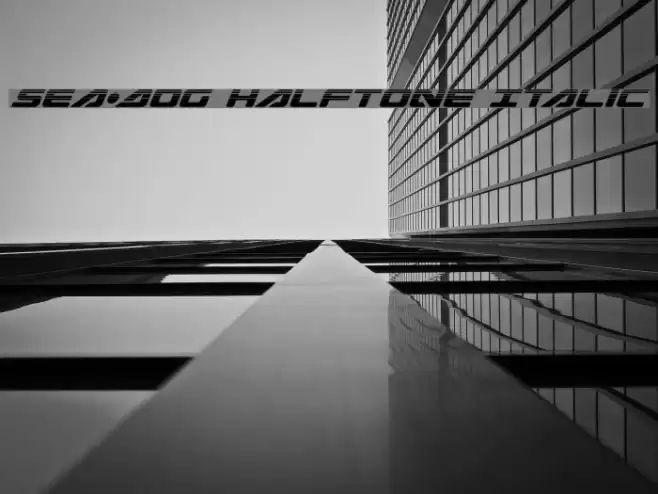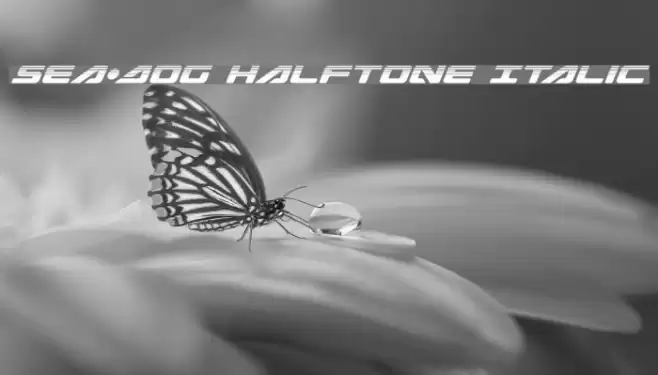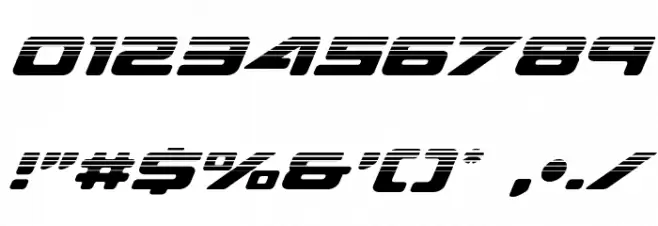
Sea-Dog Halftone Italic Font
Sea-Dog Halftone Italic Description
This font features a bold, italicized style with a distinct halftone pattern that gives it a dynamic and futuristic appearance. The characters are designed with a series of horizontal lines that create a sense of movement and energy. The uppercase and lowercase letters maintain a consistent style, with sharp angles and a slanted orientation that enhances the italic effect. The numerals and special characters follow the same design principles, ensuring uniformity across all glyphs. This font is particularly eye-catching and is likely to stand out in any design project.
A bold, italicized font with a halftone pattern and dynamic, futuristic style from Uncategorized fonts.
- Proposed Projects: Ideal for projects requiring a modern, energetic look, such as sports branding, tech-related designs, or futuristic-themed posters.
- Overall Style: Futuristic, Dynamic